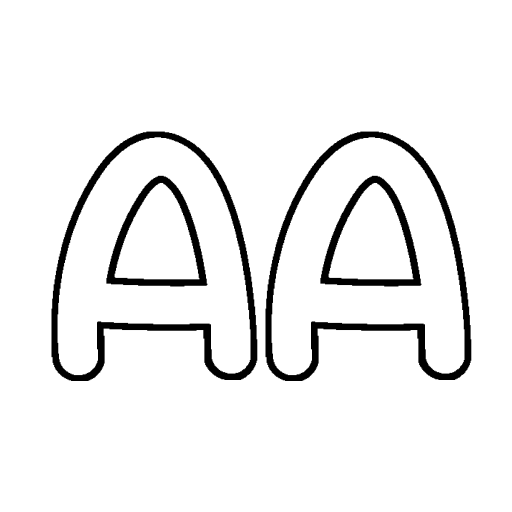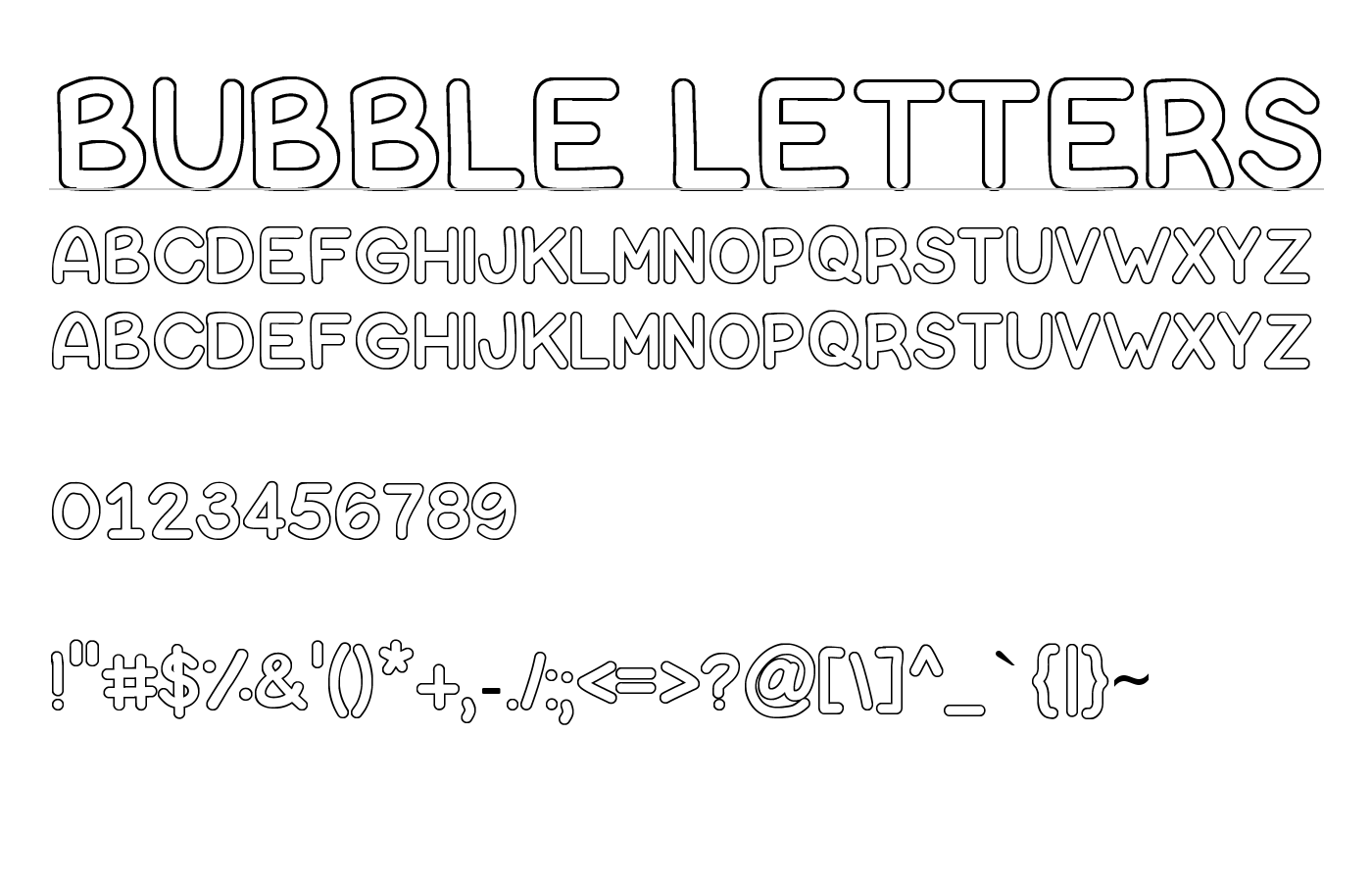
Bubble Letters Font is a playful and rounded sans serif typeface characterized by its thick, soft-edged strokes and hollow interior lines, giving it a fun and approachable "bubble" appearance. This font works best for informal designs such as children's books, party invitations, and casual branding where a lighthearted and friendly vibe is desired. Its wide, clear letterforms make it ideal for eye-catching headlines and creative projects that benefit from a unique, cheerful style.
Bubble Letters Font